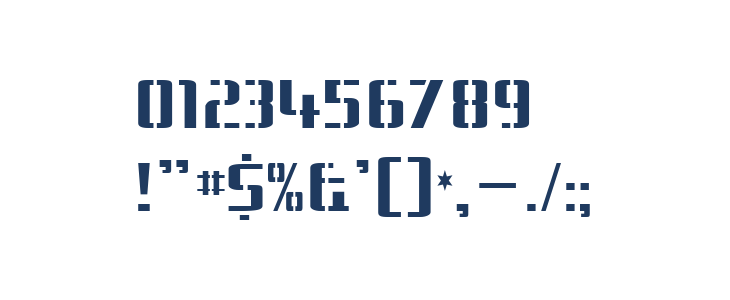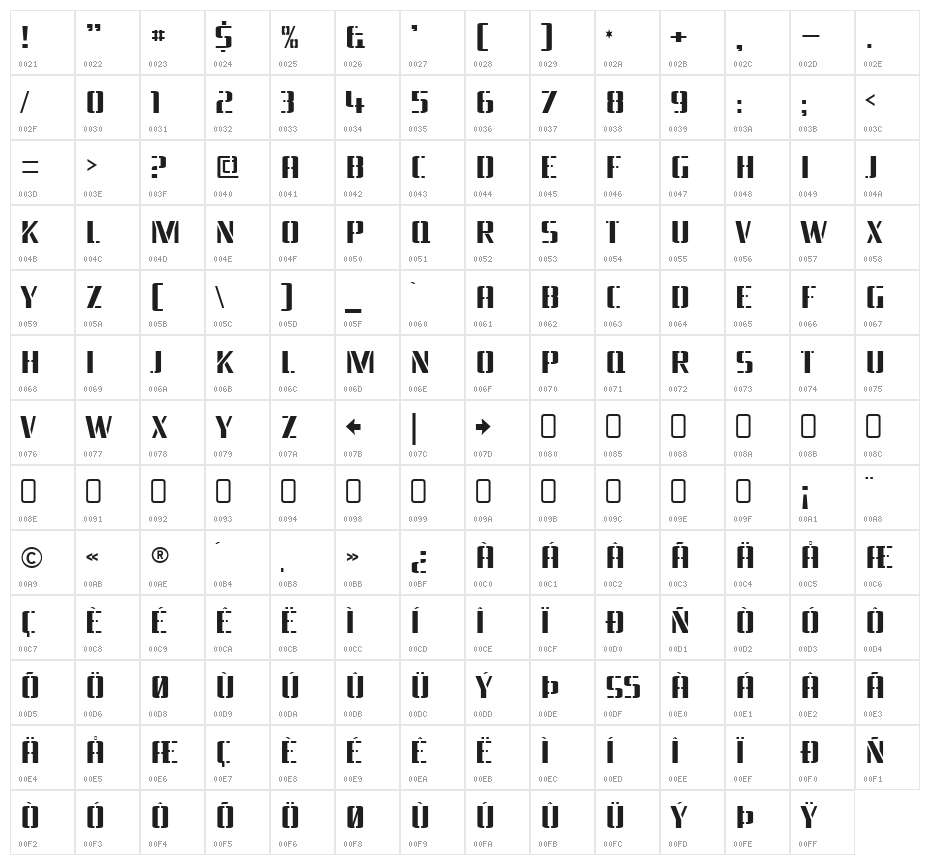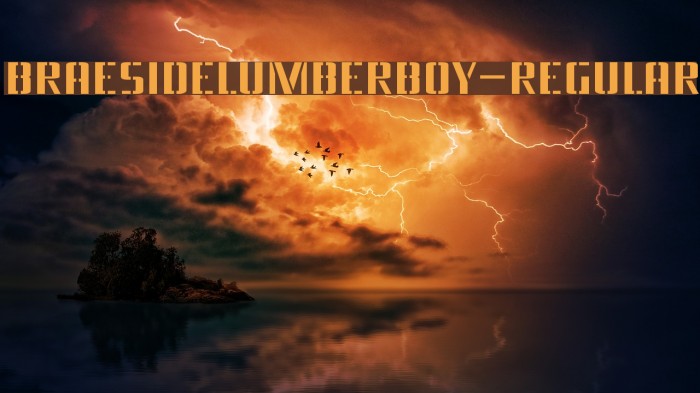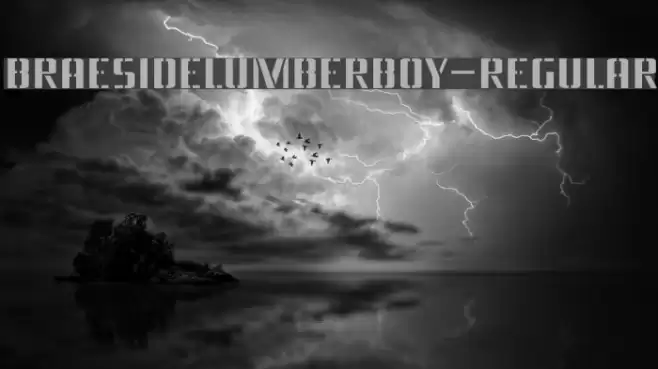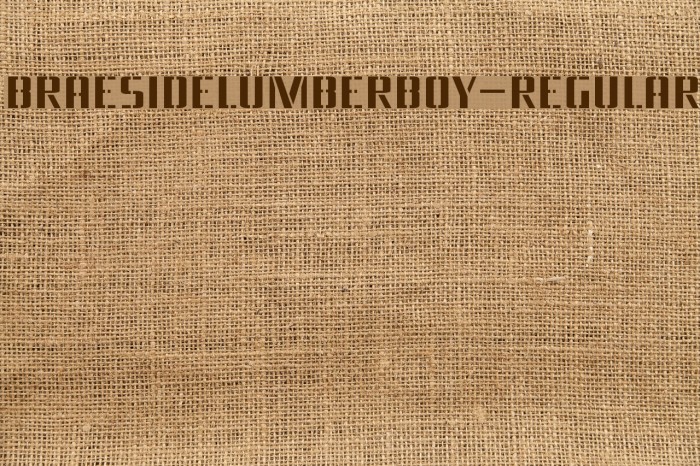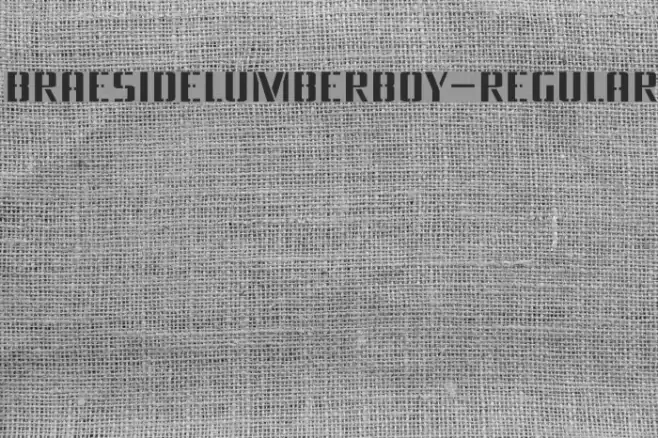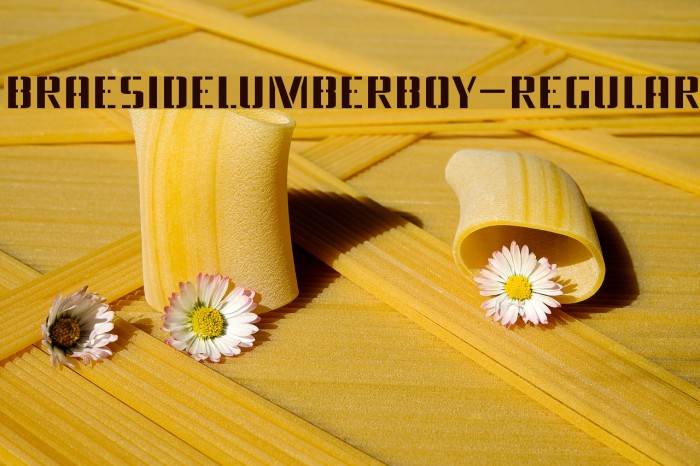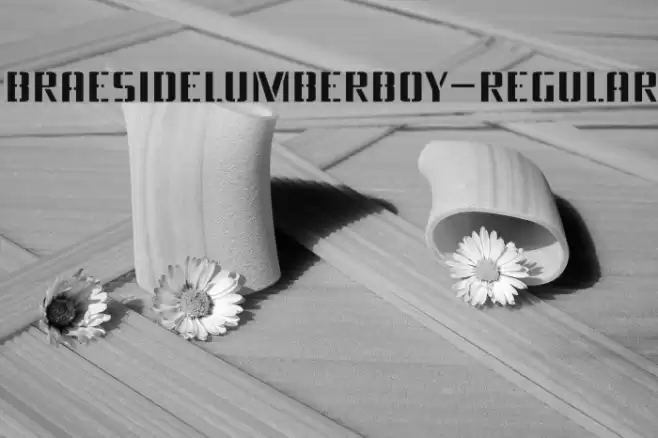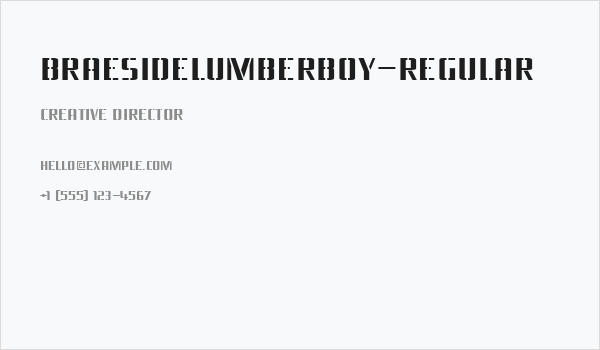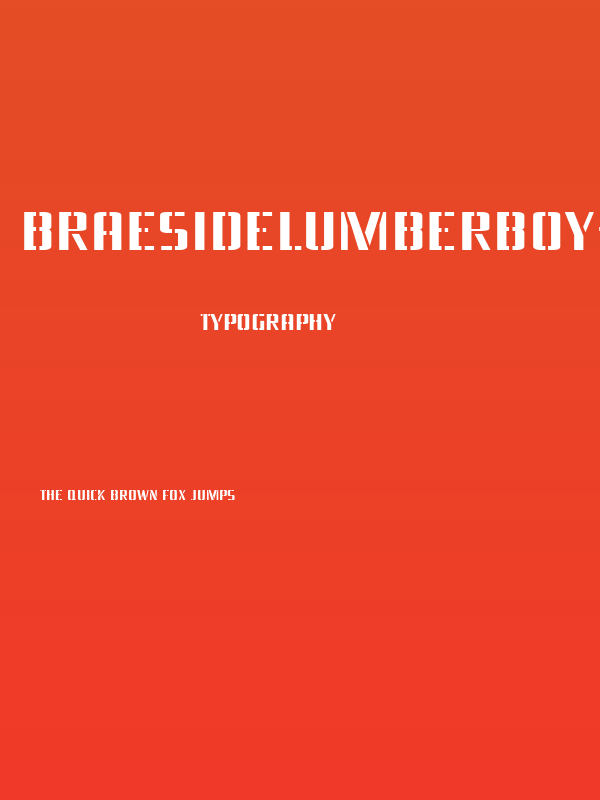
BraesideLumberboy-Regular Font
BraesideLumberboy-Regular Description
This font features a bold, geometric design with a strong, industrial feel. The characters are constructed with thick, block-like shapes, giving it a robust and sturdy appearance. The use of sharp angles and straight lines creates a sense of precision and modernity. The font maintains a consistent weight throughout, with minimal variation in stroke thickness, contributing to its uniform and cohesive look. The spacing between characters is tight, enhancing its compact and impactful style. This font is ideal for projects that require a bold statement, such as posters, signage, and branding materials.